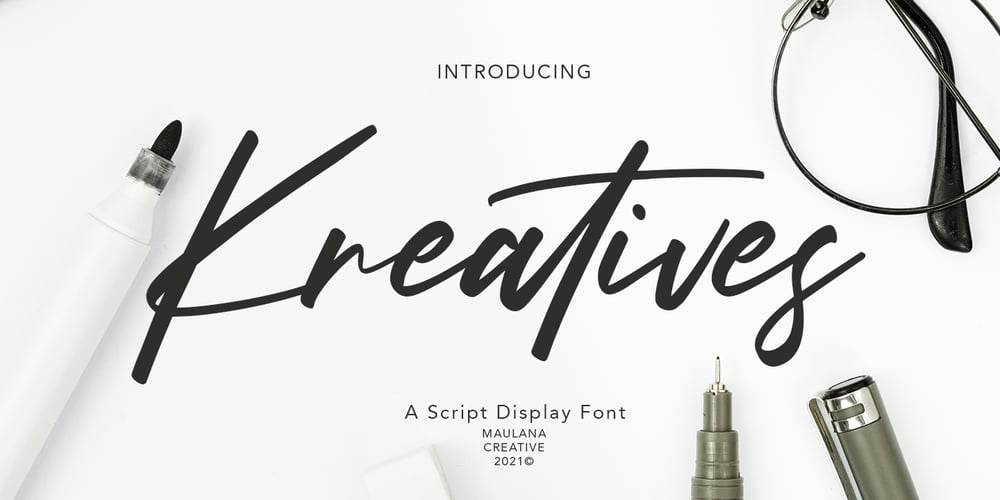
Kreatives
Kreatives font
Kreatives Font Family was designed by Gilang Maulana and published by Maulana Creative. Kreatives contains 1 styles and family package options. Kreatives is a script display font, with high contrast regular stroke, super slanted and fun character. It has Opentype features ligatures of character, To give you an extra creative work. Kreatives script display font support multilingual more than 100+ language. This font is good for logo design, Social media, Movie Titles, Books Titles, a short text even a long text letter and good for your secondary text font with sans or serif. Make a stunning work with Kreatives font. Cheers, MaulanaCreative